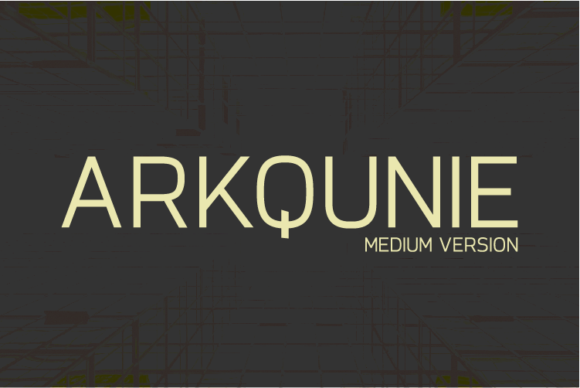
Arkqunie Medium Font
Step into the world of Arkqunie Medium Font, a sans serif masterpiece crafted by Nan Design that exudes individuality and geometric charm. This font family is a symphony of sharp lines and smooth curves, each letter meticulously designed to convey a sense of casual elegance.
Unleash your creativity with Arkqunie, a font that dances between the traditional and the contemporary. Its clean and crisp structure provides a solid foundation for your designs, while its playful corners add a touch of whimsy and personality. Whether you're crafting headlines that demand attention or creating eye-catching logos that linger in the memory, Arkqunie Medium Font is your perfect companion.
Explore the vast design possibilities with Arkqunie. Its versatility knows no bounds, making it an ideal choice for a wide range of creative projects. From the bold and assertive to the delicate and refined, Arkqunie seamlessly adapts to your vision. Whether you're working on business cards, letterheads, magazine layouts, or captivating posters, Arkqunie will elevate your designs to new heights.
Immerse yourself in the world of Arkqunie, where every letter is an expression of creativity and every word carries a story. Its unique character and boundless versatility make it a must-have for designers seeking to create impactful and memorable designs. Download Arkqunie Medium Font today and unlock the door to endless design possibilities.